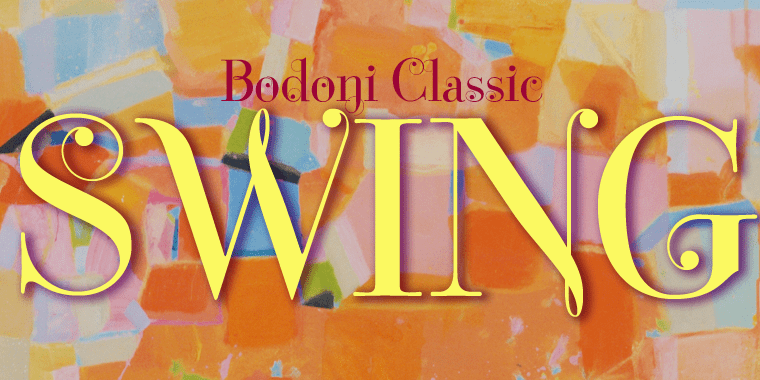
Bodoni Classic Swing
Font Family by Wiescher Design
Bodoni Classic Swing is another of my decorative additions to Bodoni's family of typefaces.
Bodoni did not design decorative versions. His quest was for purity in book design. He was purely as a printer who had to cut his own fonts because there simply weren't any foundries in those days. I think if Giambattista were alive today he would design many decorative typefaces.